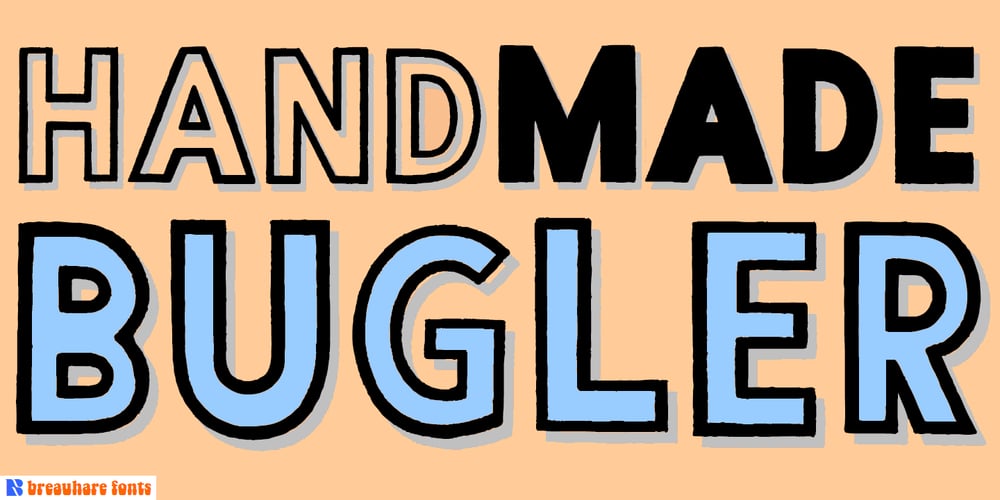
Handmade Bugler Font Family was designed by Harry Warren and published by Breauhare. Handmade Bugler contains 4 styles and family package options. Handmade Bugler is a font based on the first logo created by Harry Warren in late 1974 for his sixth grade class newsletter, The Broadwater Bugler, at Broadwater Academy in Exmore, Virginia, on Virginia’s Eastern Shore. This font is for people who want a handmade or grunge look that isn’t messy. It appears rather neat at normal range but the larger it is, the less polished it looks, with more imperfections visible. It has a charm about it, somewhat childlike, yet retains just enough neatness. This outline font also includes a solid version which can be overlaid with the outline, so you have triple the creative possibilities! Digitized by John Bomparte.